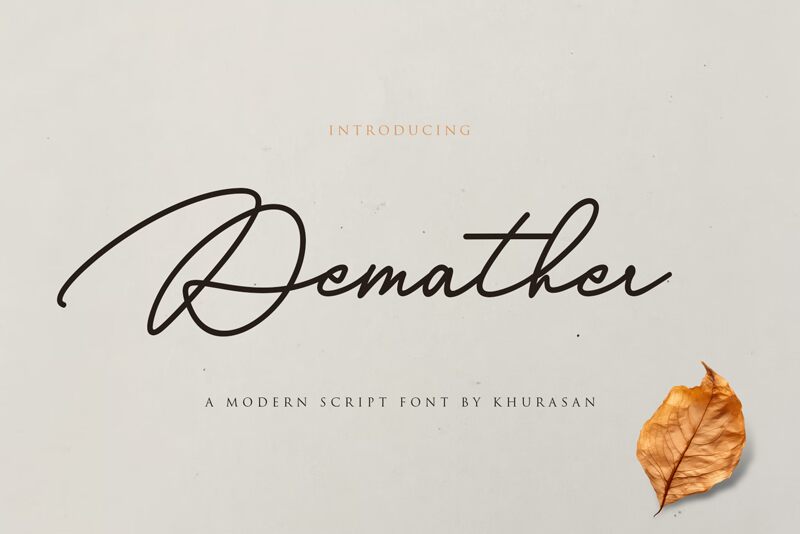
Demather
Demather font by Khurasan is a free handwritten signature font that solves a familiar headache: getting real signature energy without losing clarity. Its silk-thin strokes sweep in with a confident opener, then settle into steady, connected letters that read cleanly at a glance. The rhythm feels natural—airy loops, gentle pressure shifts, and just enough irregularity to suggest ink on smooth paper.
Using Demather, you can confidently sign off logos, boutique branding, wedding invitations, product labels, social posts, and watermark signatures. This free font shines when scaled large for a single, memorable name or tagline. Pair it with a quiet geometric sans in small caps to keep the spotlight on that graceful stroke.